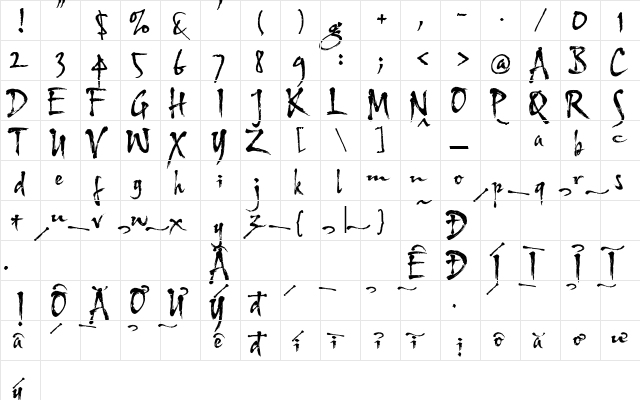
HL Thuphap 4BK Regular Font Preview
HL Thuphap 4BK Regular
Design Context for HL Thuphap 4BK Typeface
HL Thuphap 4BK is a composed and adaptable typeface that performs quietly and consistently across a wide range of design contexts.